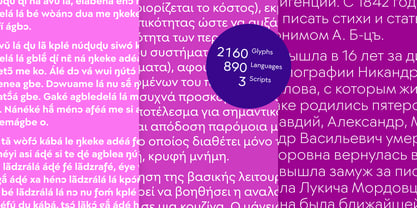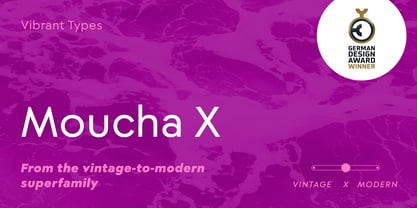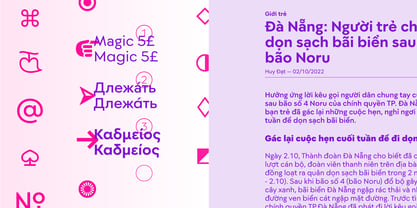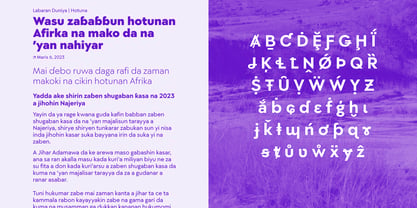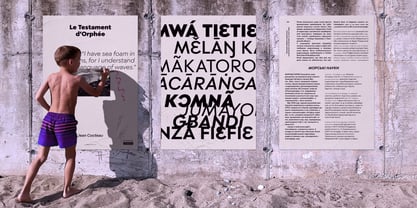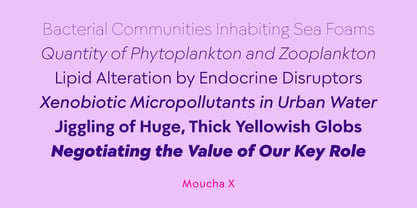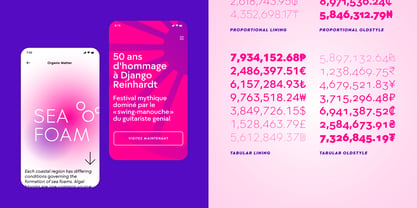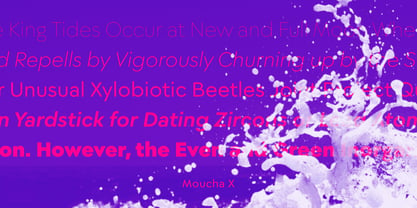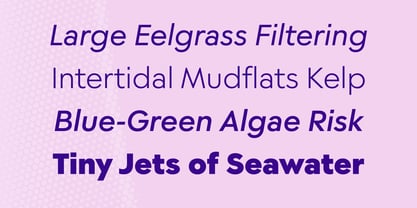
Moucha X
by Vibrant Types
The Moucha X Font Family was designed by Philip Lammert and published by Vibrant Types. Moucha X contains 16 styles and family package options. More about this family
Moucha X is a geometric typeface family with a harmonious typesetting. The normal-wide ‘n’ make balanced character widths with a timeless appeal. It is part of the Moucha vintage-to-modern superfamily, which received the German Design Award 2024 for its multitude of variants. It supports 890 Latin, Cyrillic, and Greek languages.
Designers: Philip Lammert
Foundry: Vibrant Types